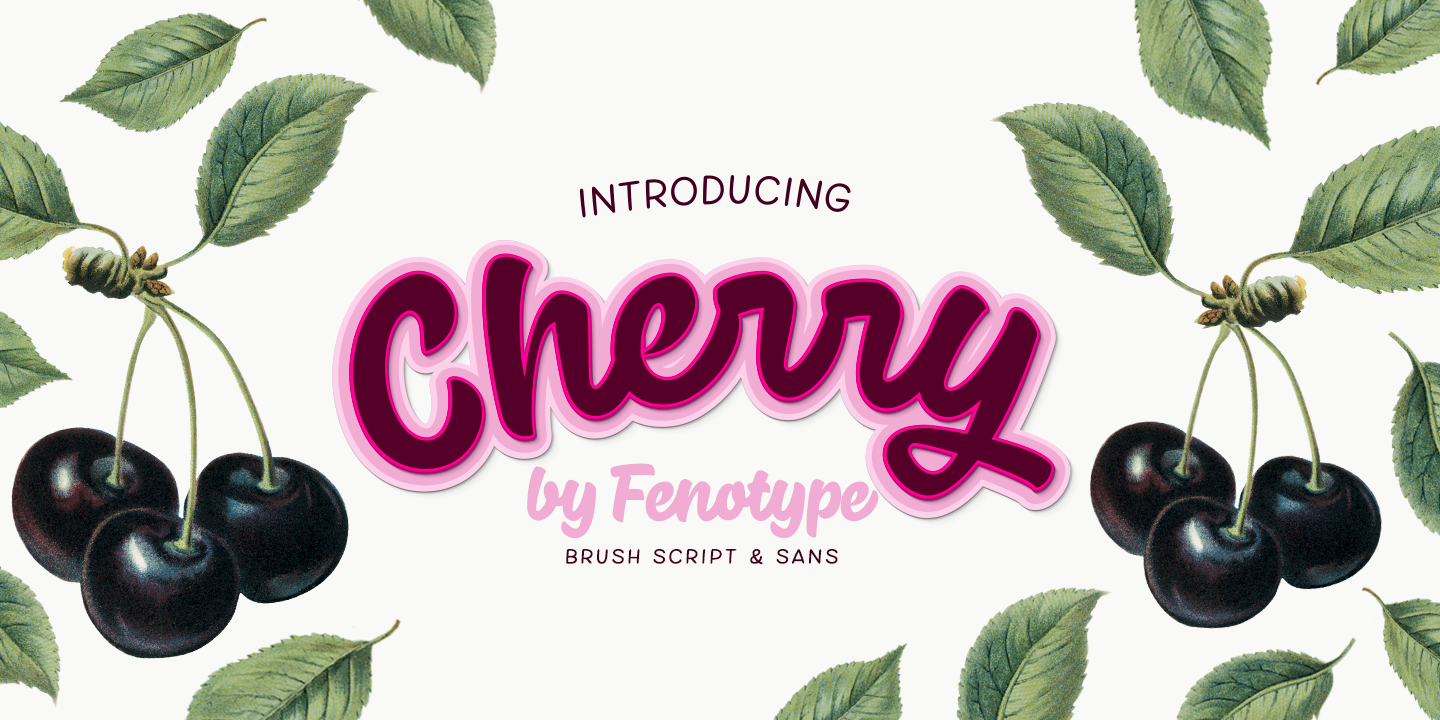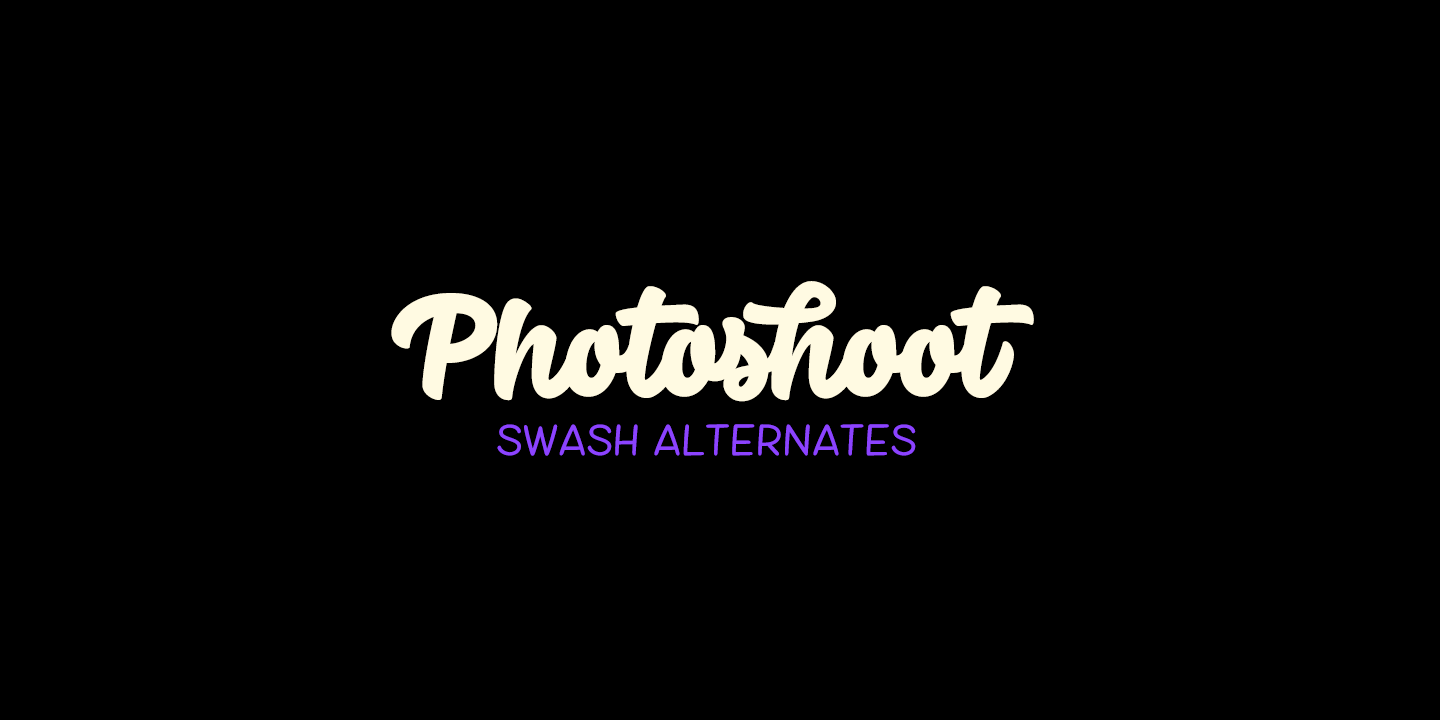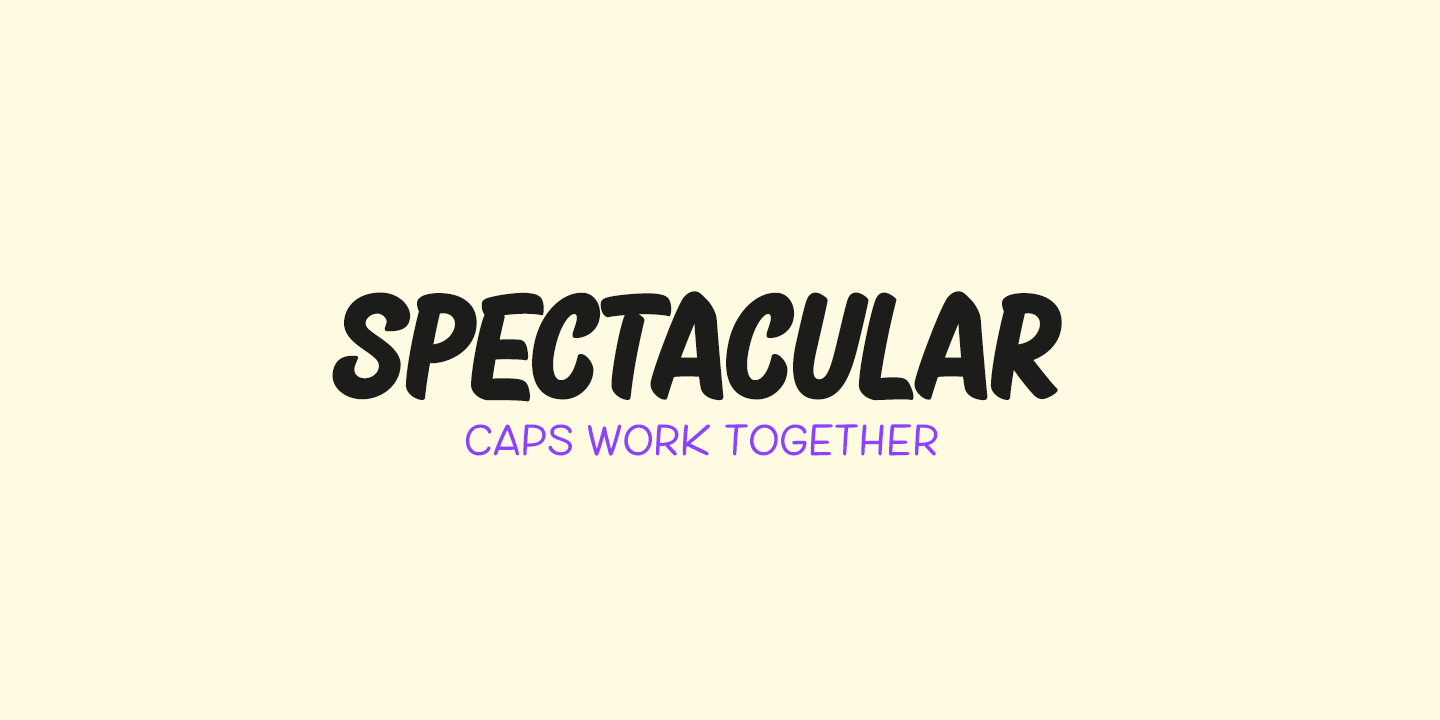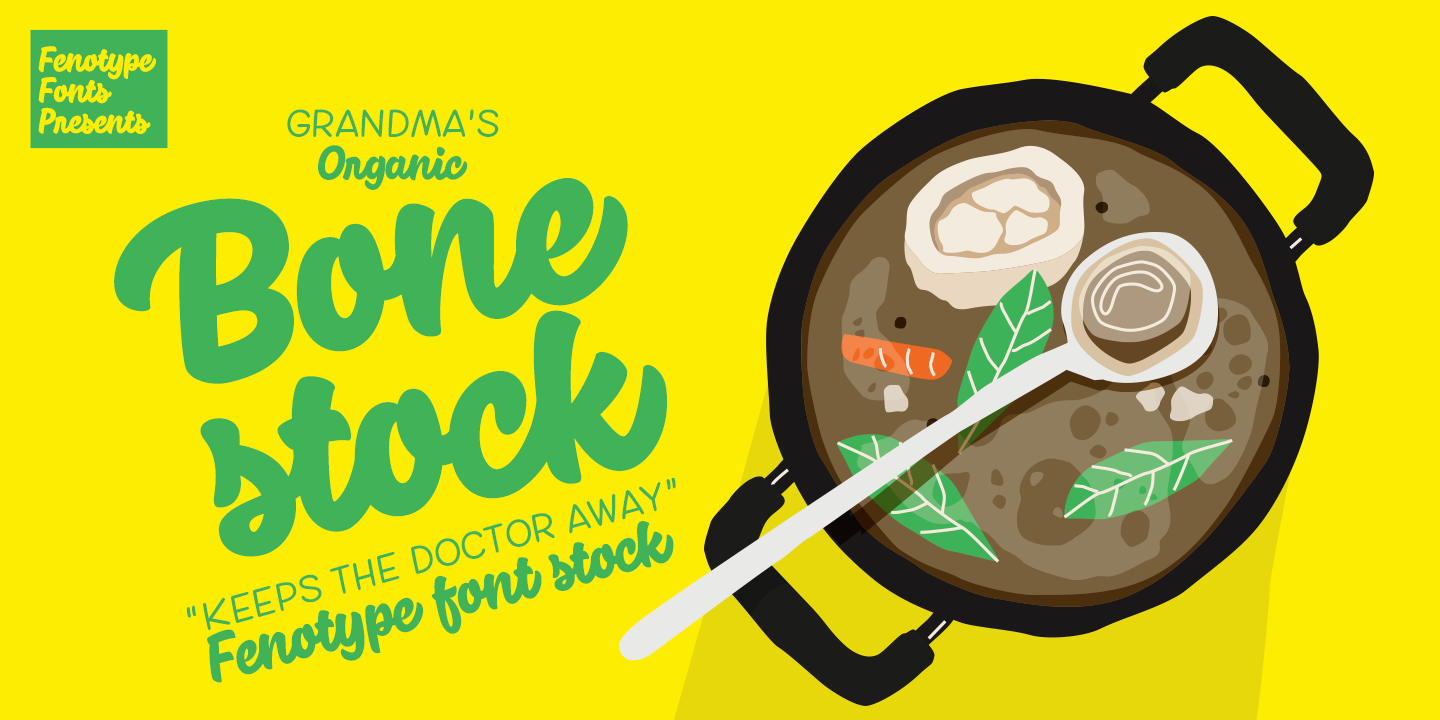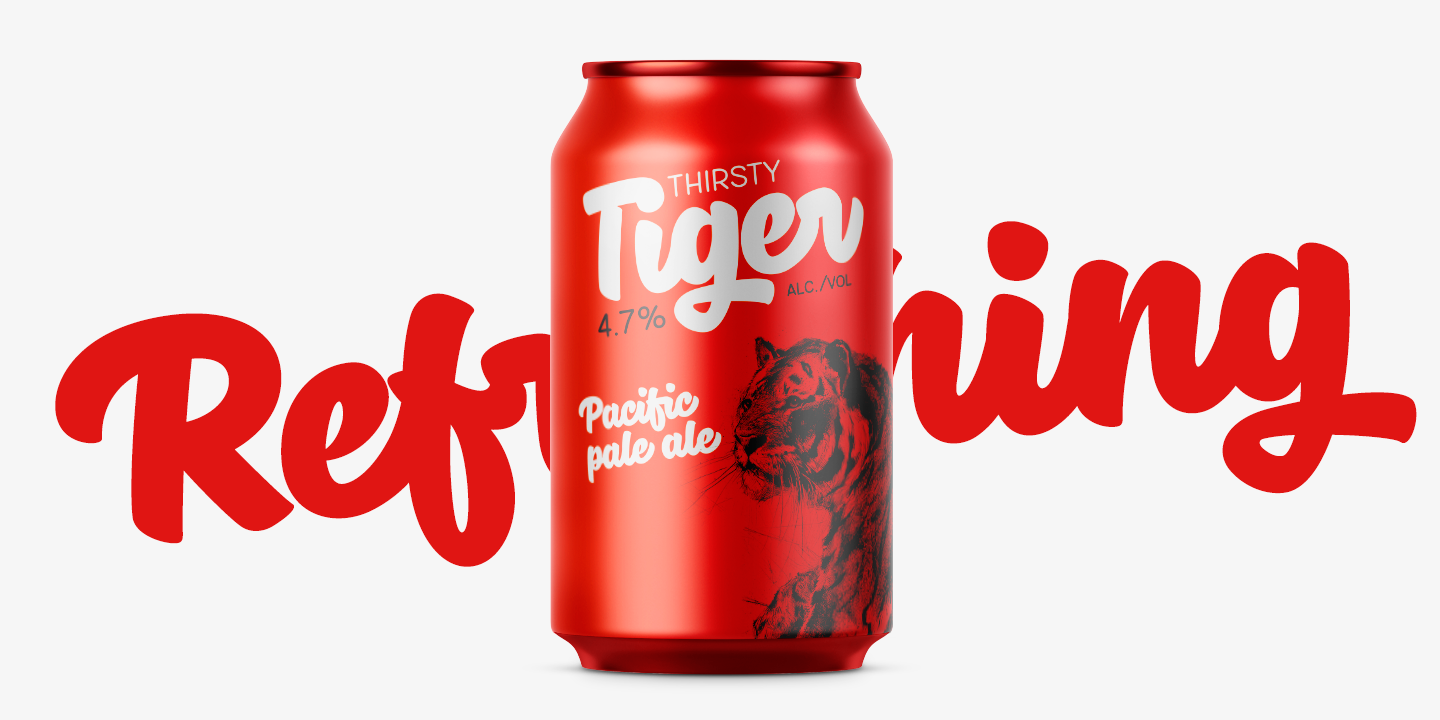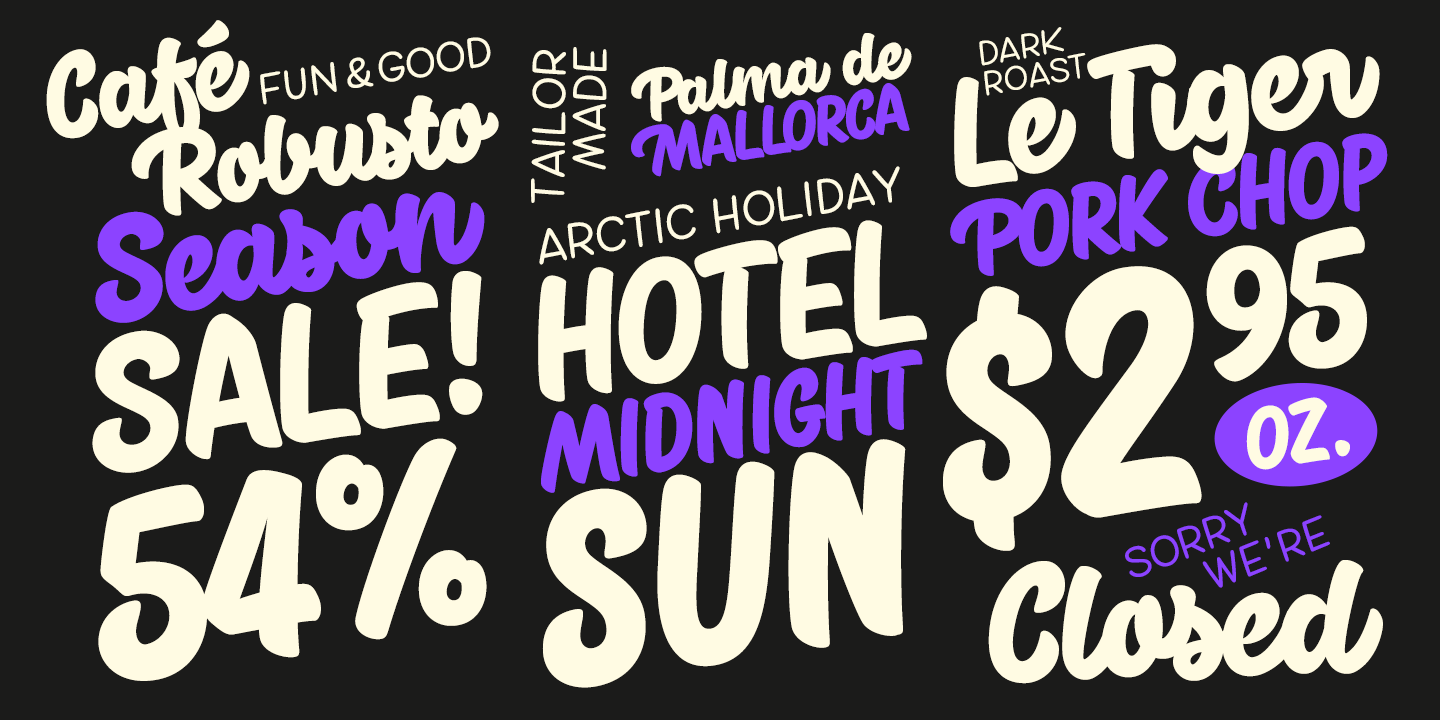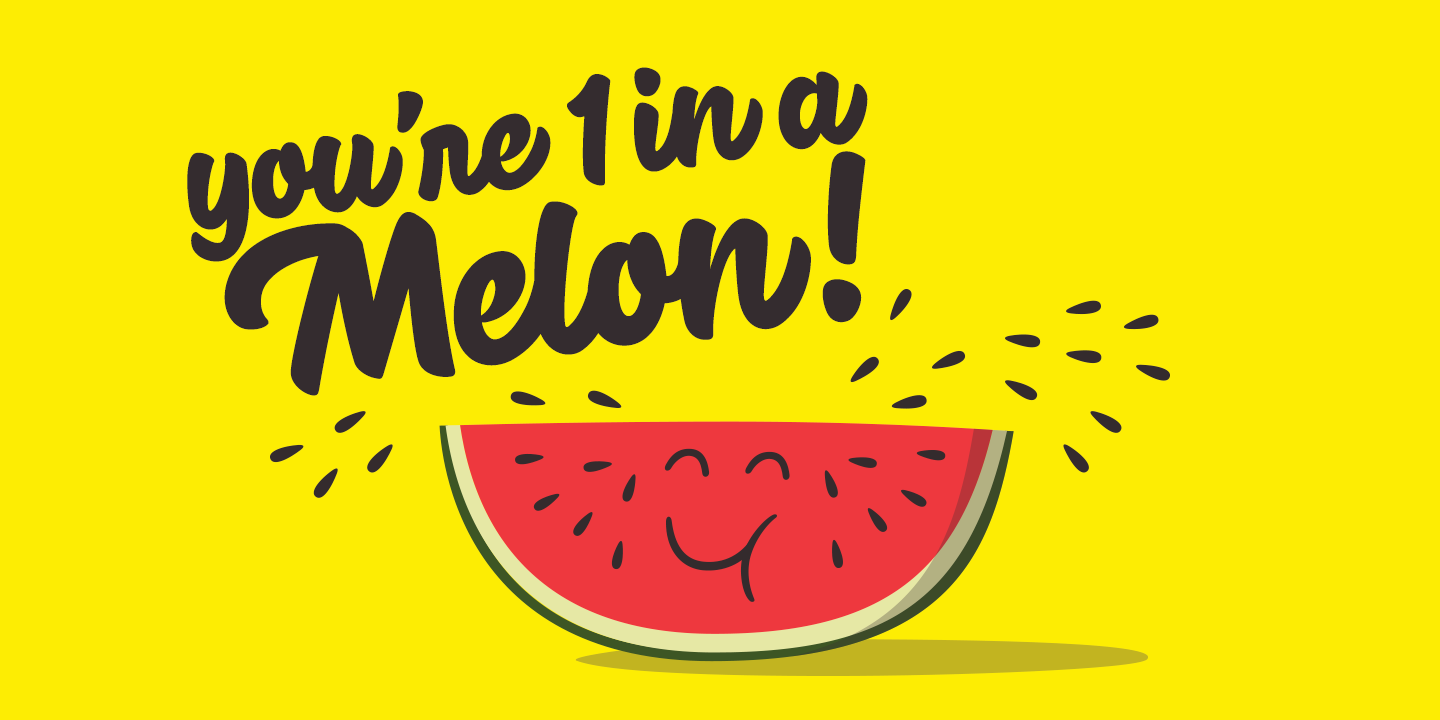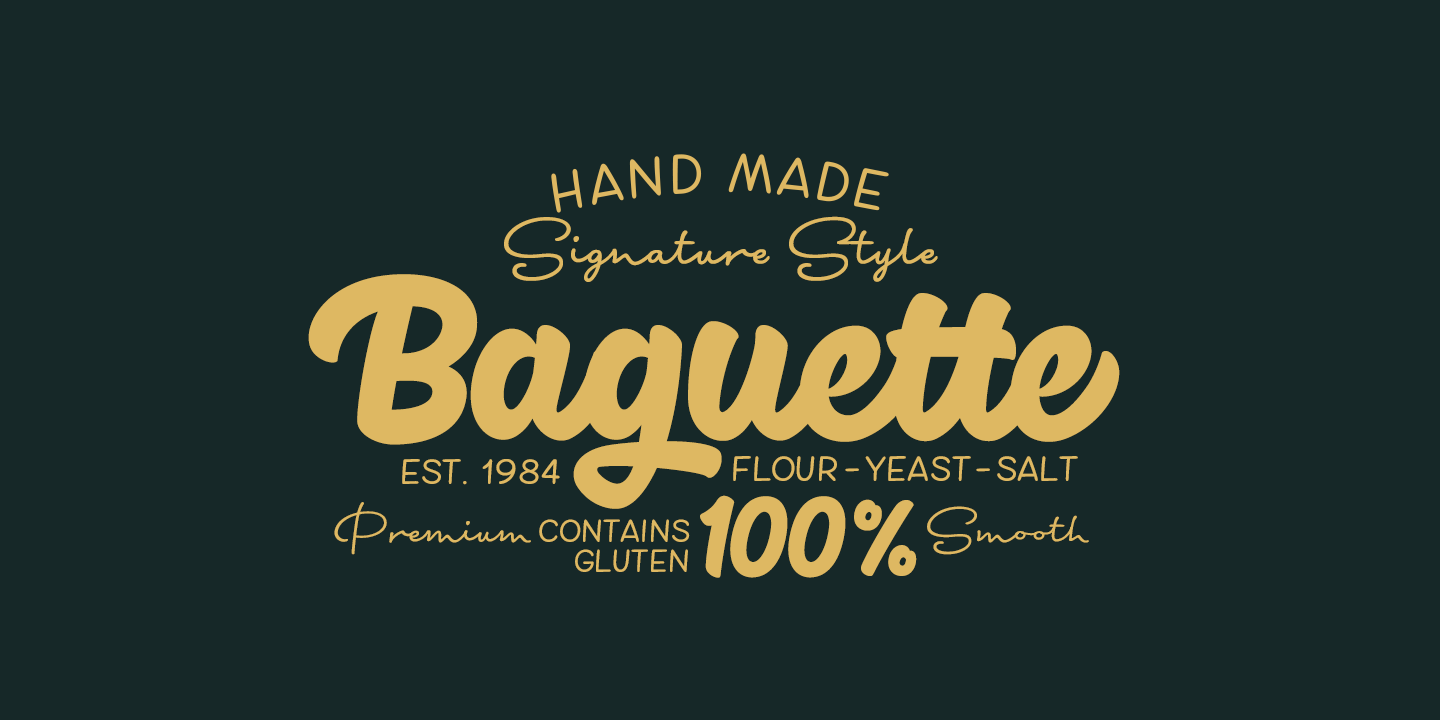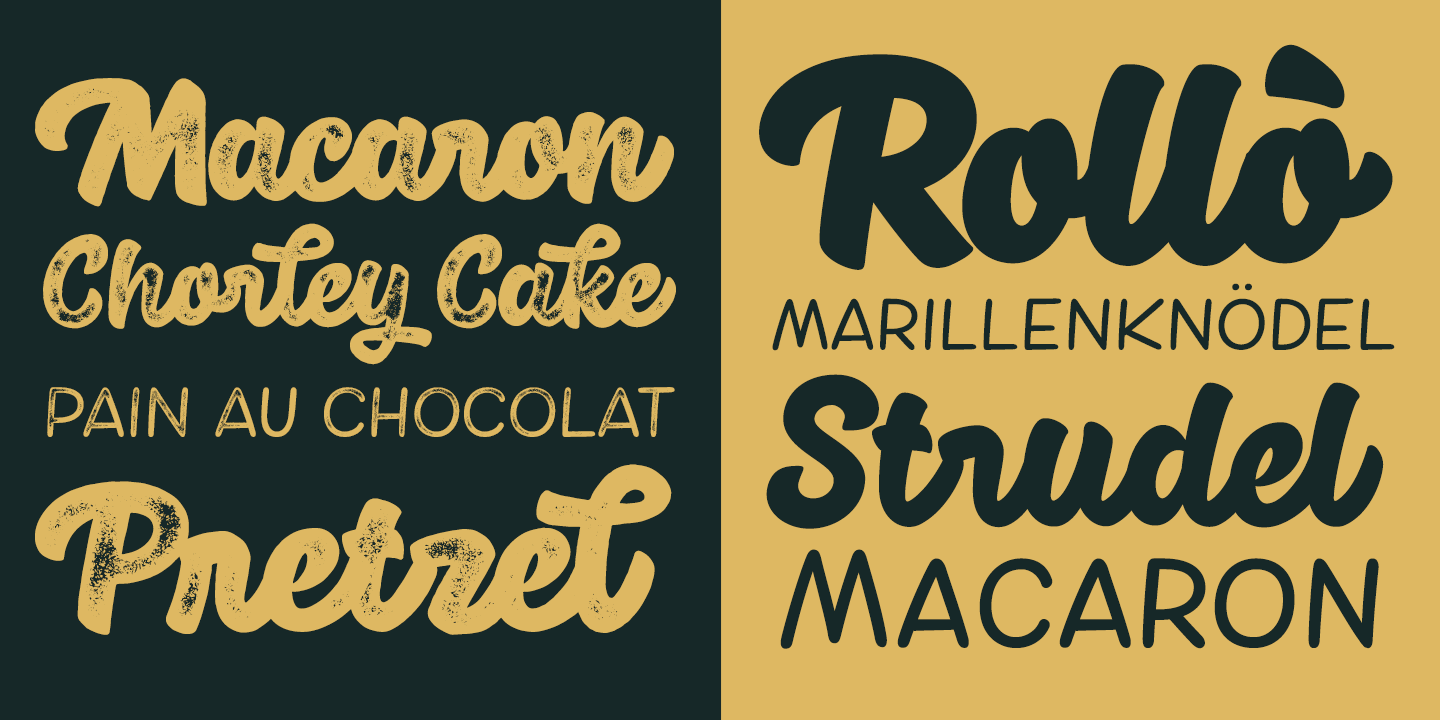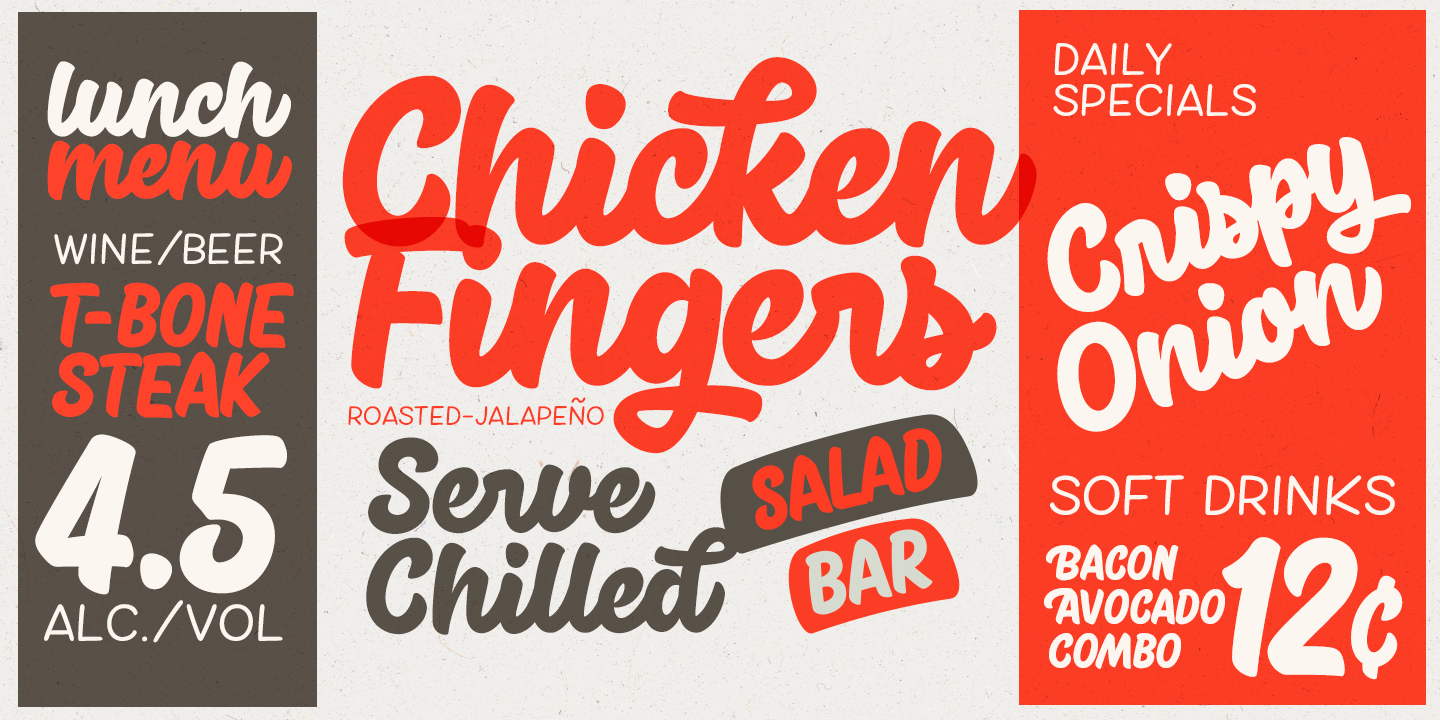
Cherry is a bold and smooth display family with connecting script “Brush” and supporting thin marker caps “Sans”. In addition there is “Extras” which is a set of strokes and ornaments designed to go with the fonts. Cherry Print is the same set with rugged outlines and eroded print texture.
Cherry Brush has clear and smooth letter shapes with lot’s of character. It’s great for Logo, Poster, Headlines, Packaging or any Display use. Cherry Brush is equipped with plenty of contextual alternates and ligatures that keep the connections smooth. This feature is set in Standard Ligatures and it’s on by default. Cherry Brush is designed so that you can also use it to writ ALL CAPS. For more flashy initials try Swash feature. Cherry Brush is PUA encoded so you can access extra characters in most graphic design softwares.
Cherry Sans is an all caps thin marker font with two size of letters (uppercase & lowercase). Cherry Sans is clean and legible. It’s designed to work with Cherry Brush but works just fine on its own too.
OpenType features: Ligatures, Swash